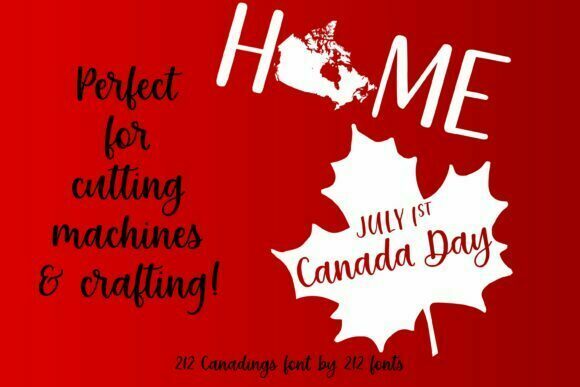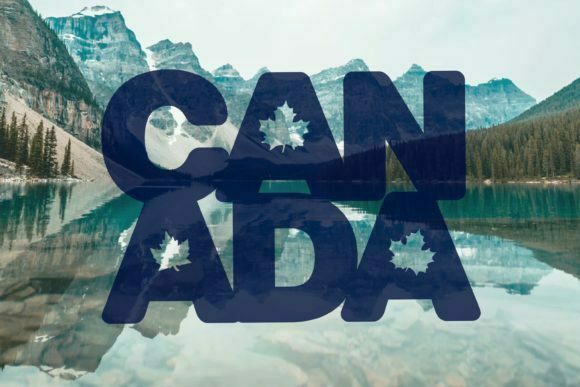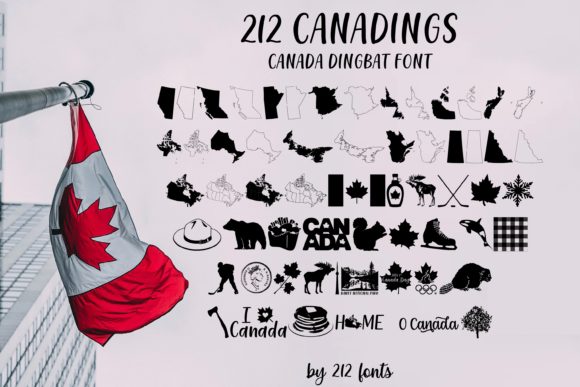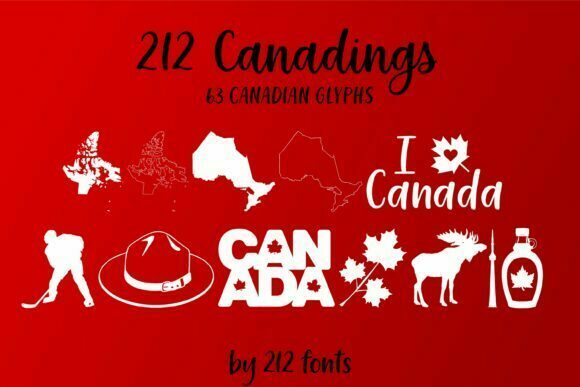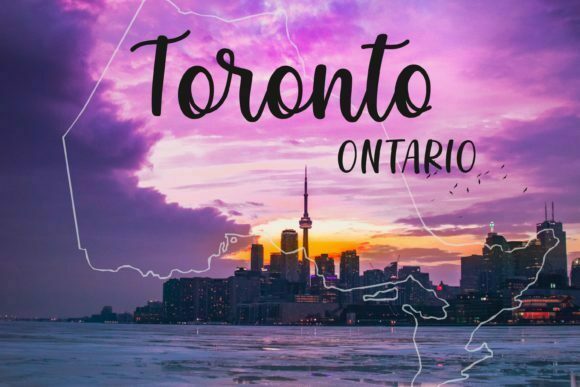
212 Canadings sounds like a fantastic dingbat font that celebrates the beauty and essence of Canada. With its collection of Canada maps, Canadian provinces, and various Canadian-themed items, this font offers a wide range of creative possibilities. Here are some ways you can use 212 Canadings in your design projects:
1. Canadian-Themed Logos: Create unique and eye-catching logos for Canadian businesses or organizations using the elements from 212 Canadings. Incorporate the Canada maps or Canadian province outlines to emphasize the geographical location. Combine them with Canadian-themed items like maple leaves, hockey sticks, or iconic landmarks to showcase the Canadian identity.
2. Graphic Designs: Add a Canadian touch to your graphic designs using 212 Canadings. Whether you’re designing posters, flyers, or social media graphics, the font’s elements can be used to create visually appealing compositions. Use the Canada maps or province outlines as background elements or incorporate them into typography designs. Experiment with different combinations of Canadian-themed items to convey specific messages or evoke a sense of Canadian pride.
3. Crafting and Cutting Machines: Take your crafting projects to the next level with 212 Canadings. Use the font’s elements to create stencils for painting or cutting machines like Cricut or Silhouette. Personalize items such as T-shirts, tote bags, or home decor with Canadian-themed designs. The solid and outline forms of the Canadian provinces and other elements provide versatility in crafting applications.
4. Educational Materials: If you’re creating educational materials with a focus on Canada, 212 Canadings can be a valuable resource. Use the font’s elements to highlight specific regions on maps or create interactive activities for students. Incorporate the Canadian-themed items to make learning about Canada more engaging and enjoyable.
5. Scrapbooking and Travel Journals: Document your Canadian adventures or create travel journals with the help of 212 Canadings. Use the font’s elements to highlight the places you’ve visited in Canada or create themed pages related to Canadian culture and landmarks. The maps, province outlines, and Canadian-themed items will add visual interest and storytelling elements to your scrapbook layouts.
6. Promotional Materials: If you’re organizing or promoting Canadian events, festivals, or celebrations, 212 Canadings can be a valuable asset. Use the font’s elements to create eye-catching posters, banners, or invitations that capture the spirit of Canada. Incorporate the Canadian-themed items to reinforce the event’s theme and create a cohesive visual identity.
212 Canadings provides a wealth of Canadian-themed elements that can elevate your design projects, whether they’re logos, graphics, crafts, educational materials, or scrapbooking. With its maps, province outlines, and Canadian-themed items, this font offers versatility and creativity for your Canadian-inspired creations. Let the beauty of Canada shine through in your designs with the help of 212 Canadings!